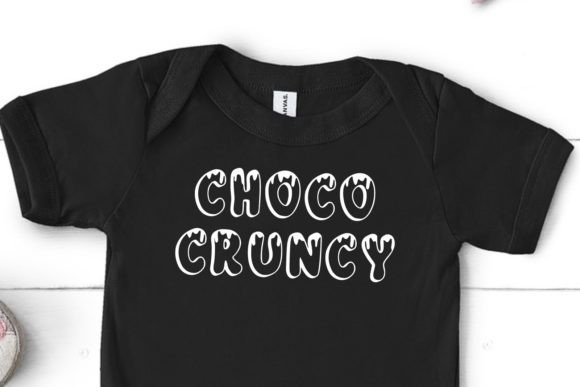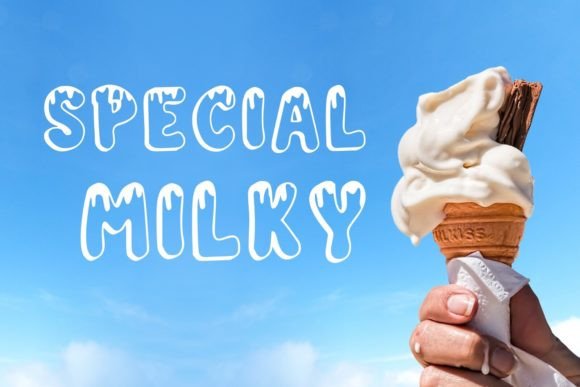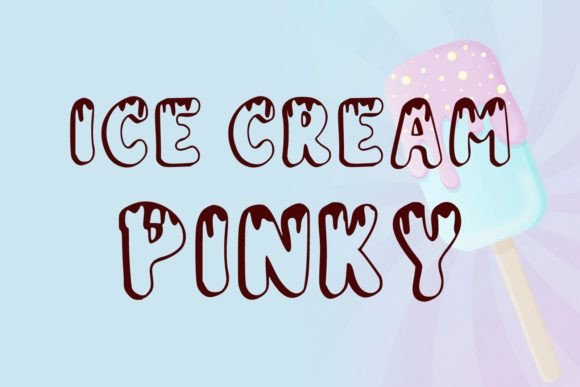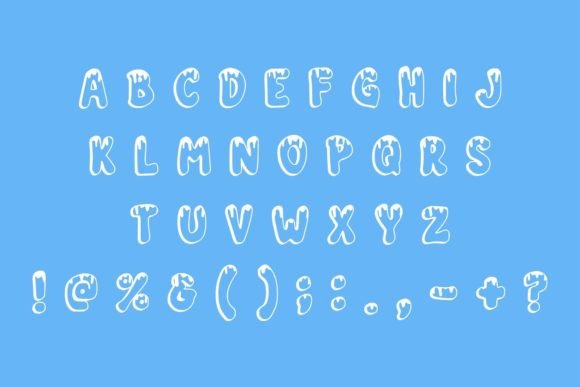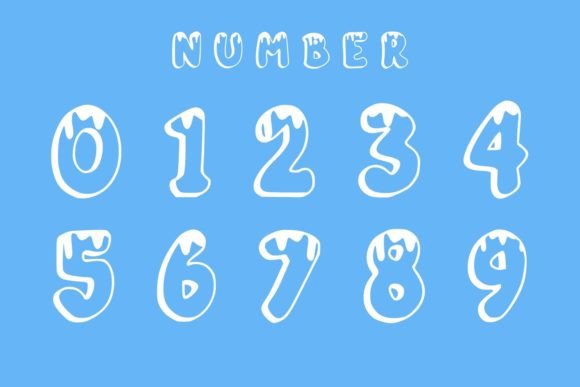
The Magic of Winter in Typography
Have you ever stumbled upon a font that instantly transports you to a winter wonderland? As a designer, you know that the right font can evoke emotions and set the tone for any project. For me, it was a late-night brainstorming session while sipping hot cocoa that sparked the idea of using a font that captures the essence of snowflakes gently falling on a winter scene.
That’s when I discovered the Creamy Melty Font – a crafty and Melt display font that perfectly embodies the magic of winter. Each letter is delicately covered in snow, making it the ideal choice for any winter-themed project. Whether it’s a children’s activity, a Christmas poster, or a school project, this font is sure to bring a touch of whimsy and wonder to your design. As a designer, you’ll appreciate the versatility and playfulness of the Creamy Melty Font, making it a valuable addition to your typography arsenal.
Creamy Melty Font Key Features
- Font Family: Creamy Melty Font is a unique, hand-drawn font with a creamy texture and melty feel, perfect for adding a touch of whimsy to your designs.
- Character Set: The font includes a wide range of characters, including uppercase and lowercase letters, numbers, punctuation, and special characters, making it suitable for various design projects.
- Unique Characteristics: Creamy Melty Font features a distinctive, hand-drawn feel with a creamy texture and melty edges, giving your designs a unique and eye-catching look.
Designer Review: Creamy Melty Font
Overall, I think Creamy Melty Font has some great qualities that make it a solid choice for certain projects, but it also has some limitations that might make it less ideal for others. Let’s dive into what works well and what doesn’t.
- ✨ Friendly and approachable feel: The rounded edges and smooth lines of this font give it a welcoming, friendly vibe that’s perfect for branding and marketing materials.
- ✨ Versatile: Creamy Melty Font is suitable for a wide range of applications, from headings to body text, and can be used in both digital and print formats.
- ✨ Easy to read: The font’s clear, legible design makes it easy on the eyes and suitable for long blocks of text.
- ⚠️ Limited expressiveness: The font’s friendly, approachable feel can sometimes make it feel a bit too generic or unremarkable.
- ⚠️ Not ideal for complex or technical text: The font’s rounded edges and smooth lines can make it difficult to distinguish between similar characters or read complex, technical text.
Overall, I think Creamy Melty Font is a solid choice for projects that require a friendly, approachable feel, but might not be the best fit for more complex or technical projects.
Tips for Getting the Most Out of Creamy Melty Font
Use Creamy Melty Font for creative and eye-catching designs.
Pair it with bold colors and striking graphics for maximum impact.
Creamy Melty Font is ideal for:
Food and beverage branding
Home decor and furniture design
Alternatives to Creamy Melty Font
Playfair Display is a luxurious, high-end serif font ideal for use in headings and titles. It has a classic feel with elegant flourishes, making it perfect for creating a sense of sophistication and refinement. When to use: luxury branding, high-end packaging, and upscale advertising.
Compared to Creamy Melty Font, Playfair Display has a more refined and classic feel, while Creamy Melty Font is more playful and casual.
Great Vibes is a modern script font that exudes a sense of elegance and sophistication. It’s perfect for creating a sense of warmth and personality, making it ideal for use in branding and advertising. When to use: creative agencies, wellness brands, and lifestyle products.